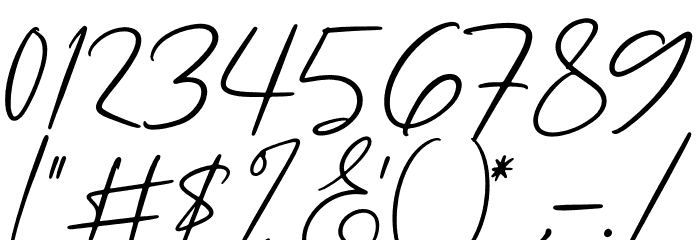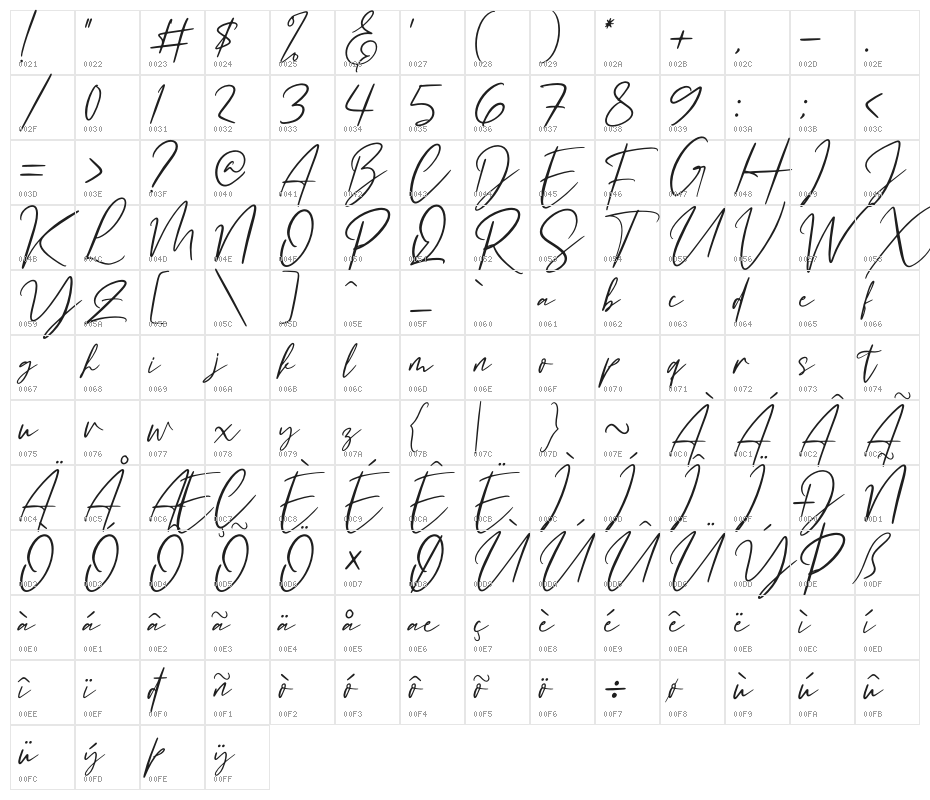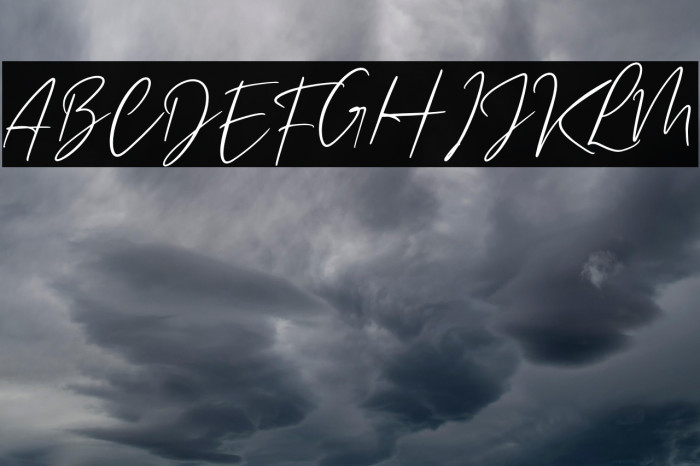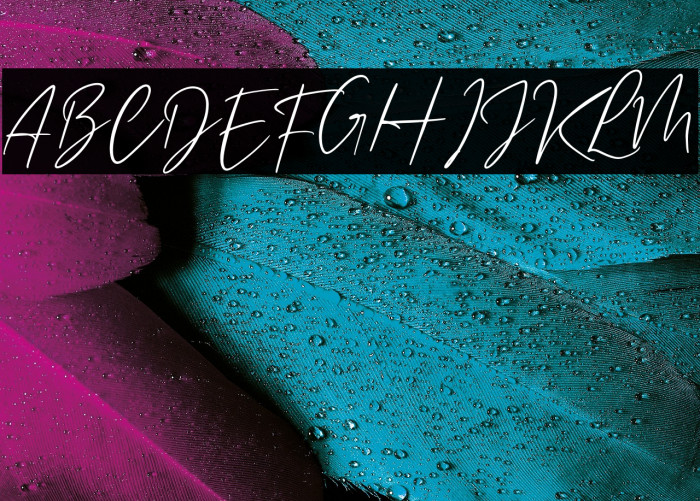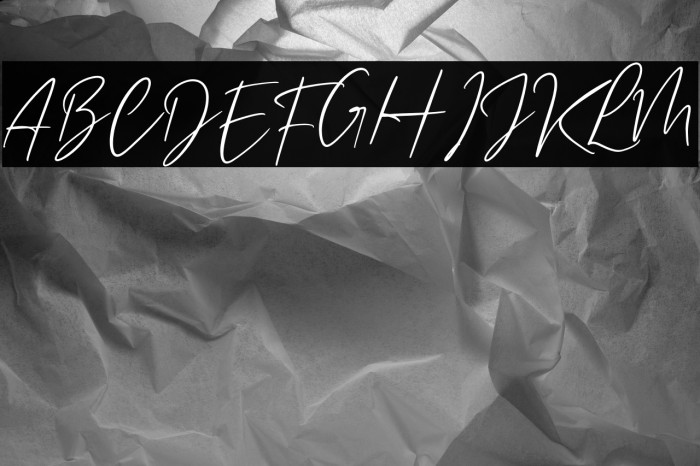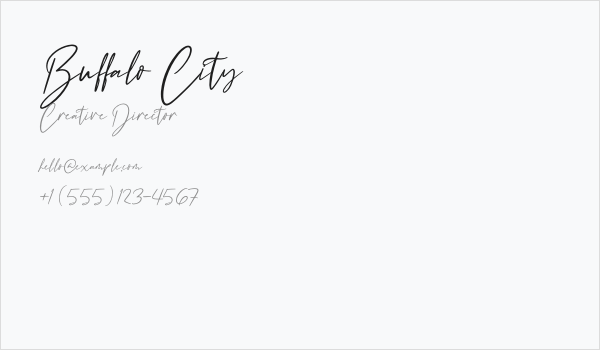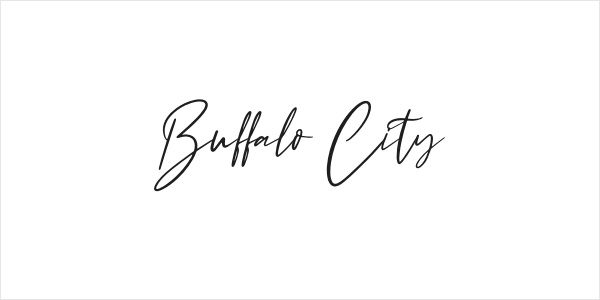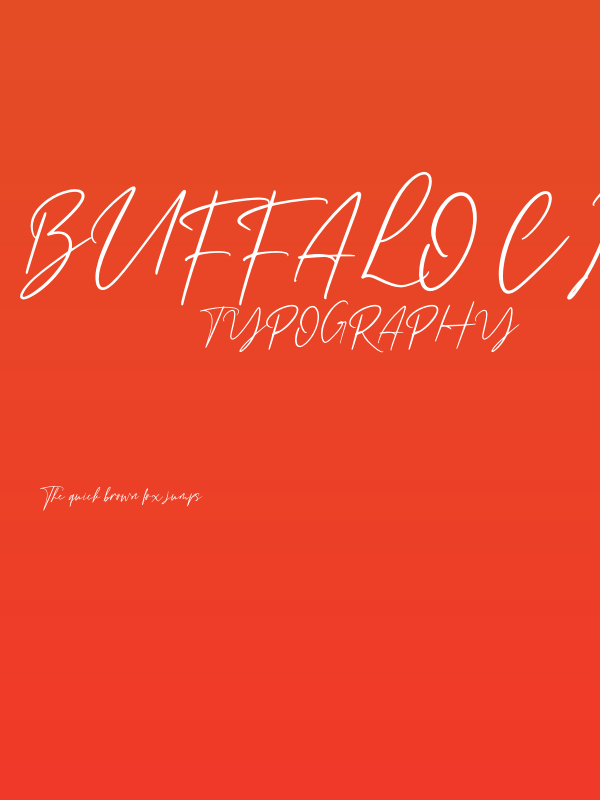
Buffalo City Font
Buffalo City Description
This font exudes a dynamic and expressive style, characterized by its fluid, cursive script that mimics natural handwriting. The uppercase letters are tall and slightly slanted, giving a sense of movement and elegance. The lowercase letters are more compact, maintaining a consistent flow with smooth, rounded curves. The numerals are clear and distinct, matching the overall handwritten aesthetic. Special characters are creatively integrated, maintaining the font's artistic flair. This font is ideal for projects that require a personal touch, such as invitations, greeting cards, and artistic branding.